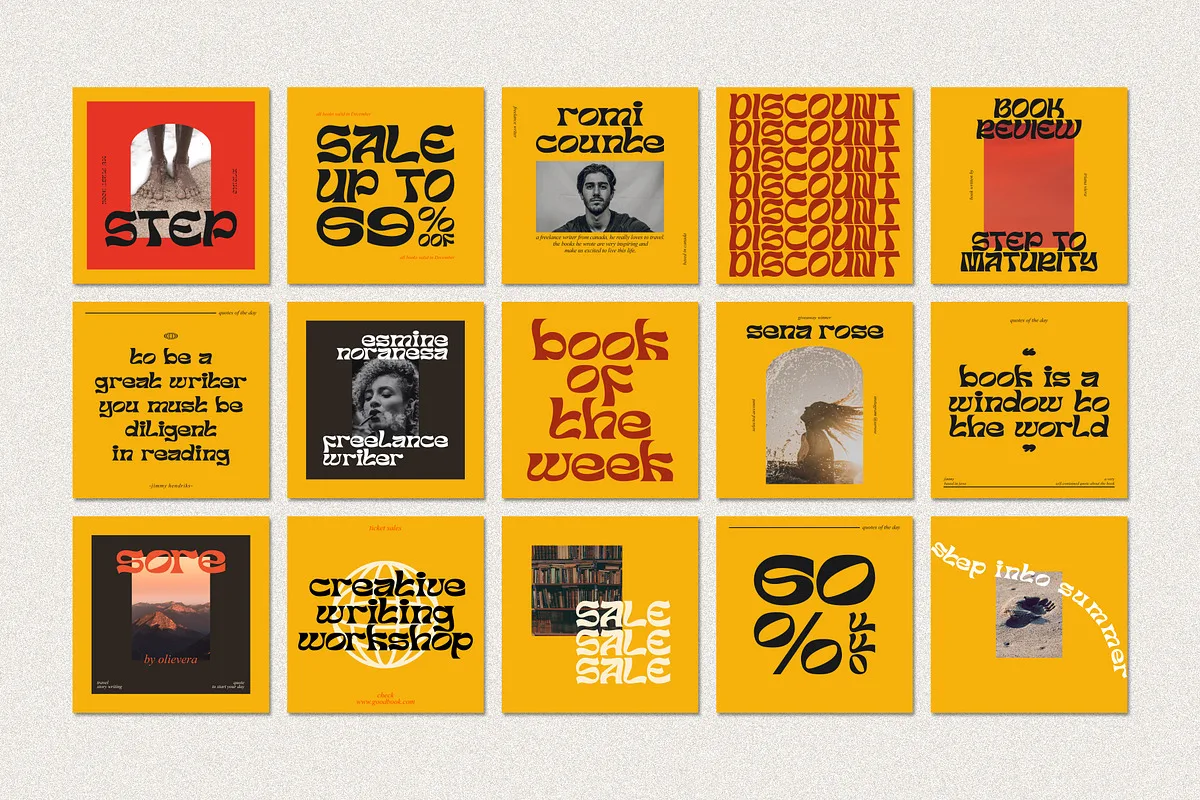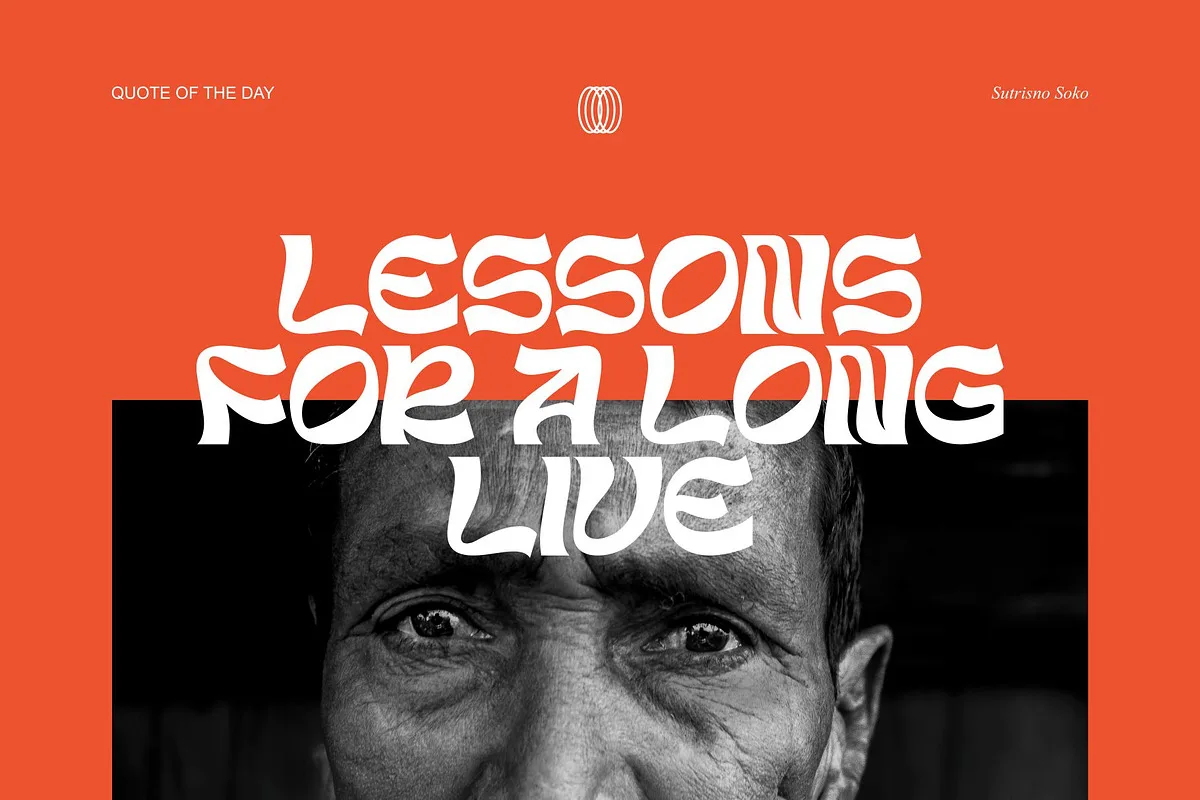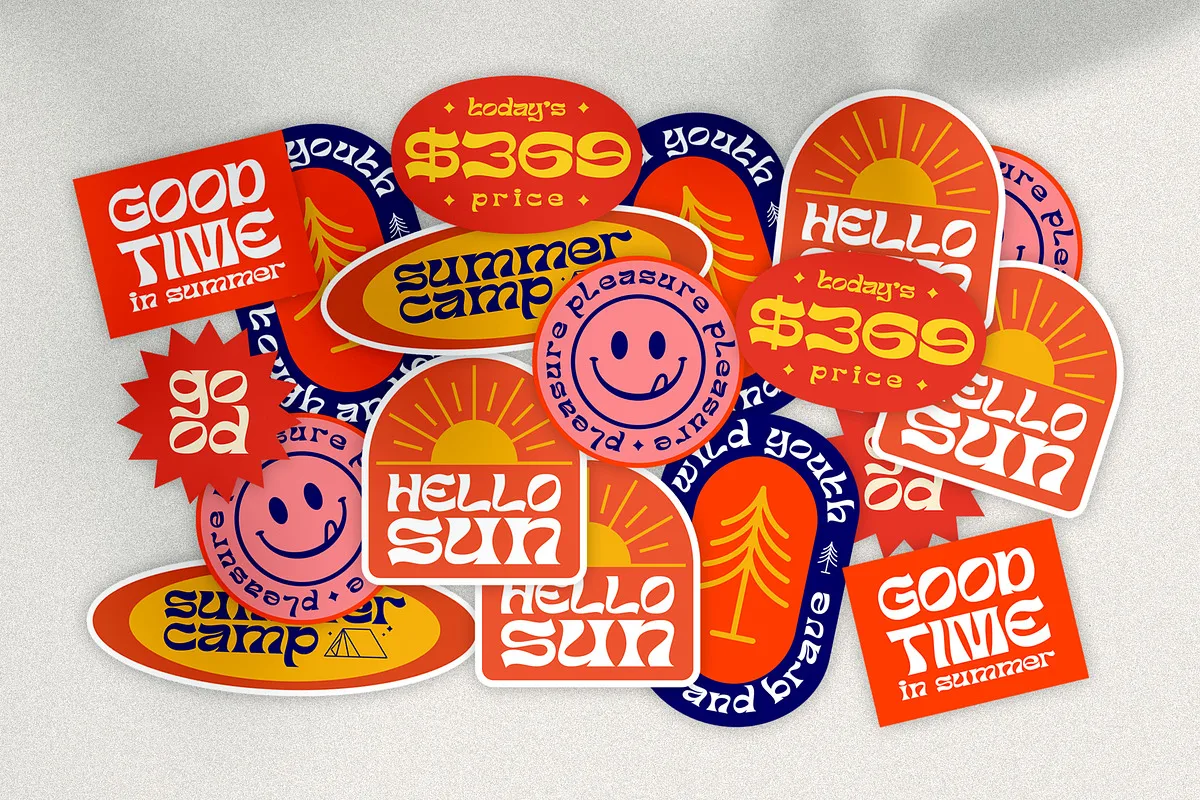
Sceageus typeface is a display font with a modern and contemporary touch. It is great for your design projects such as logos, magazines, web design, posters, invitation cards, packaging, badges, types of logos, clothing designs, labels and more.
The font also supports multilingualism, making it a great choice for businesses and individuals who want to create a global brand identity.